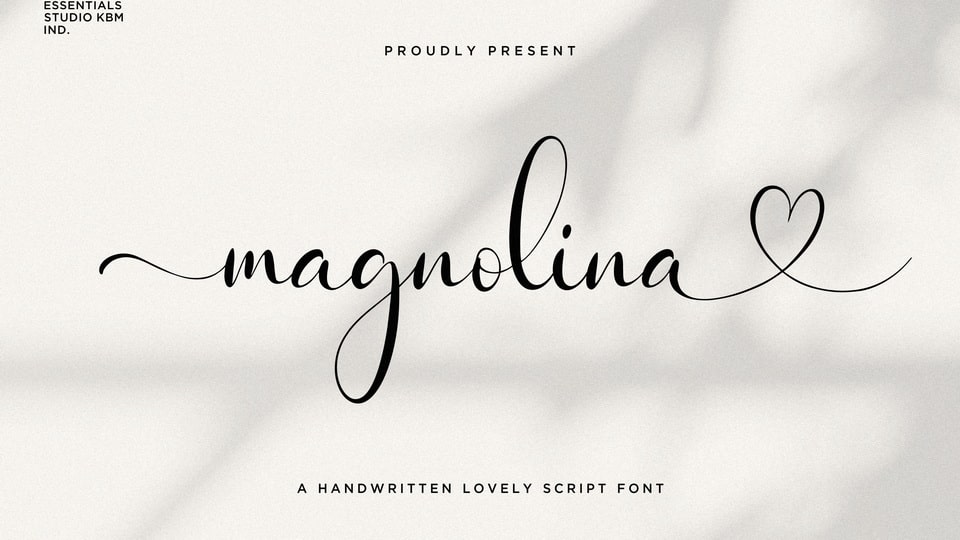
Download Magnolina font, a dazzling script typeface. Magnolina font is neatly crafted and highly detailed. Whatever the topic, this font will be a wonderful asset to your font library, as it has the potential to enhance any creation.